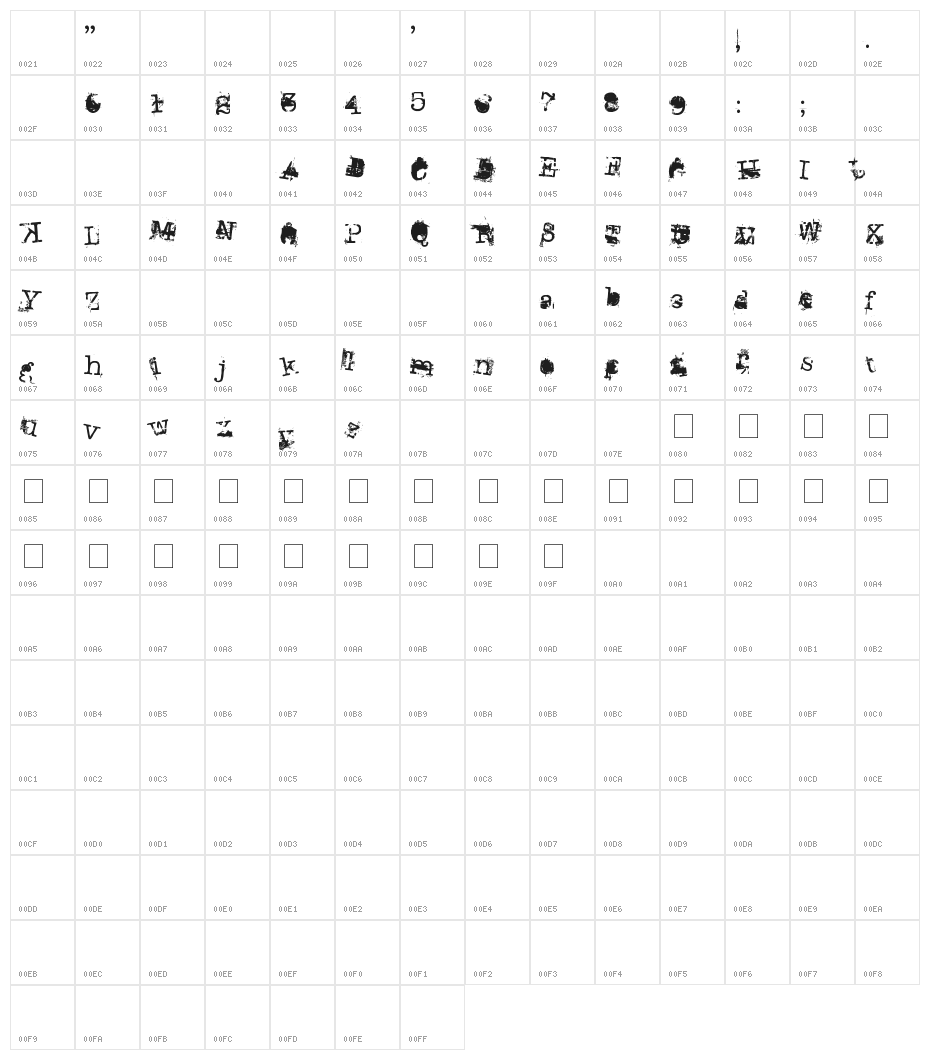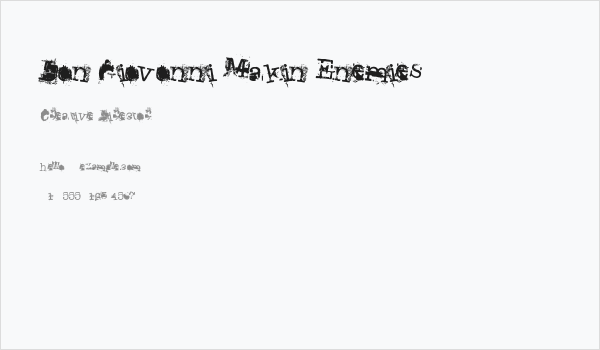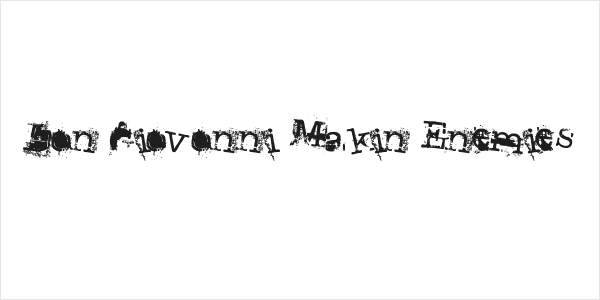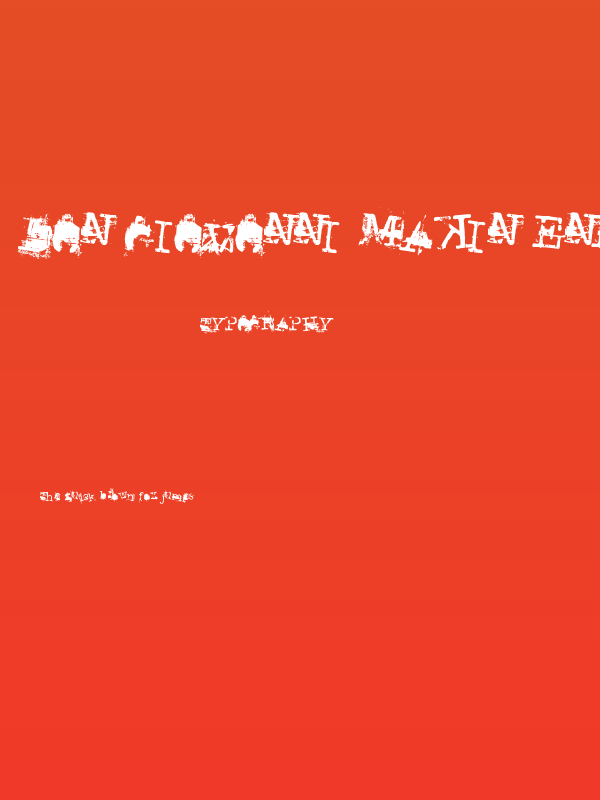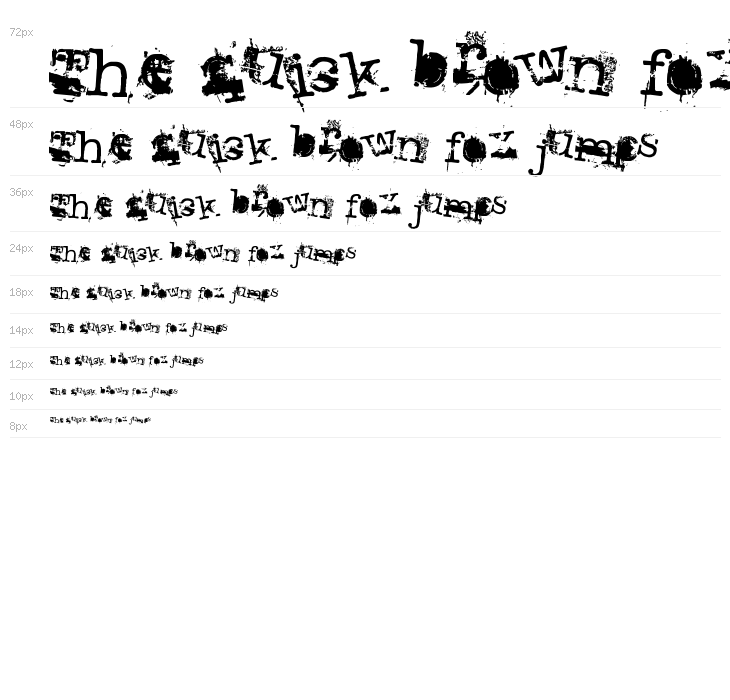
Don Giovonni Makin Enemies Font
Don Giovonni Makin Enemies Description
This font exhibits a distressed and grunge style, characterized by its rough, textured appearance. Each letter appears as if it has been stamped or printed with a worn-out ink pad, giving it a unique, weathered look. The irregularities in the letterforms add to its chaotic and rebellious aesthetic, making it stand out as a bold statement piece. The uppercase and lowercase letters maintain this distressed theme, with varying degrees of texture and wear. Numbers and special characters follow suit, ensuring a cohesive design throughout. This font is perfect for projects that require an edgy, raw, and unconventional feel.
Overall StyleGrunge, Distressed
Proposed ProjectsIdeal for album covers, posters, streetwear branding, and any project needing an edgy, rebellious touch.